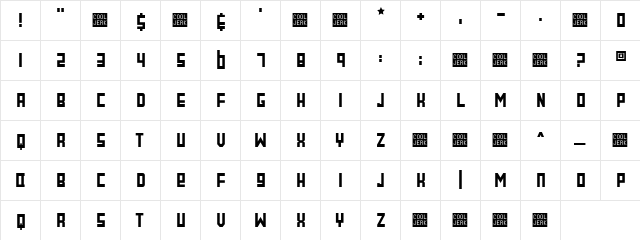
Slimline Regular
Design Context for Slimline Typeface
Slimline offers clean, dependable letterforms without strong stylistic allegiance, making it a practical choice for designers who need flexibility.